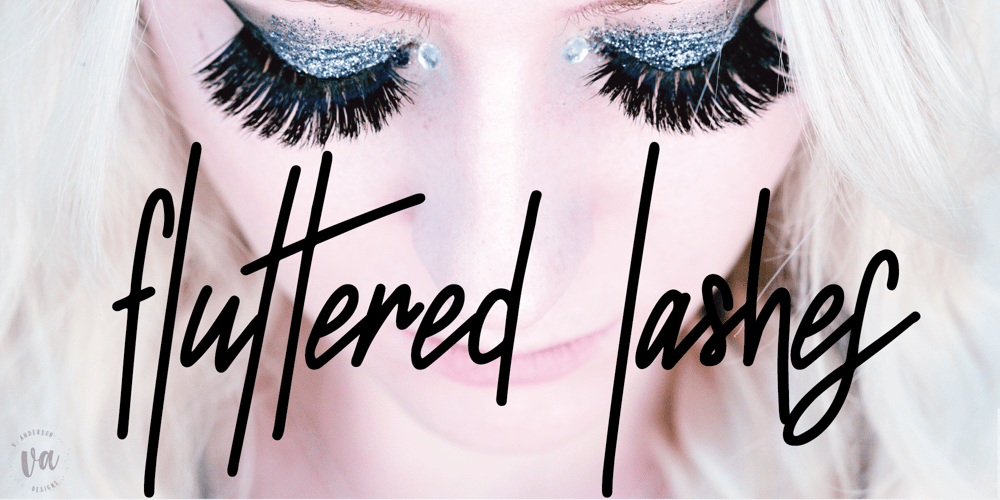
VA Fluttered Lashes
VA Fluttered Lashes font
VA Fluttered Lashes Font Family was designed by Veronica Anderson and published by V Anderson Designs. VA Fluttered Lashes contains 1 styles and family package options. Fluttered Lashes is a handwritten monoline font with both discretionary and standard ligatures to give your products that handwritten feel. It’s perfect for greeting cards, fun branding, and crafting files.